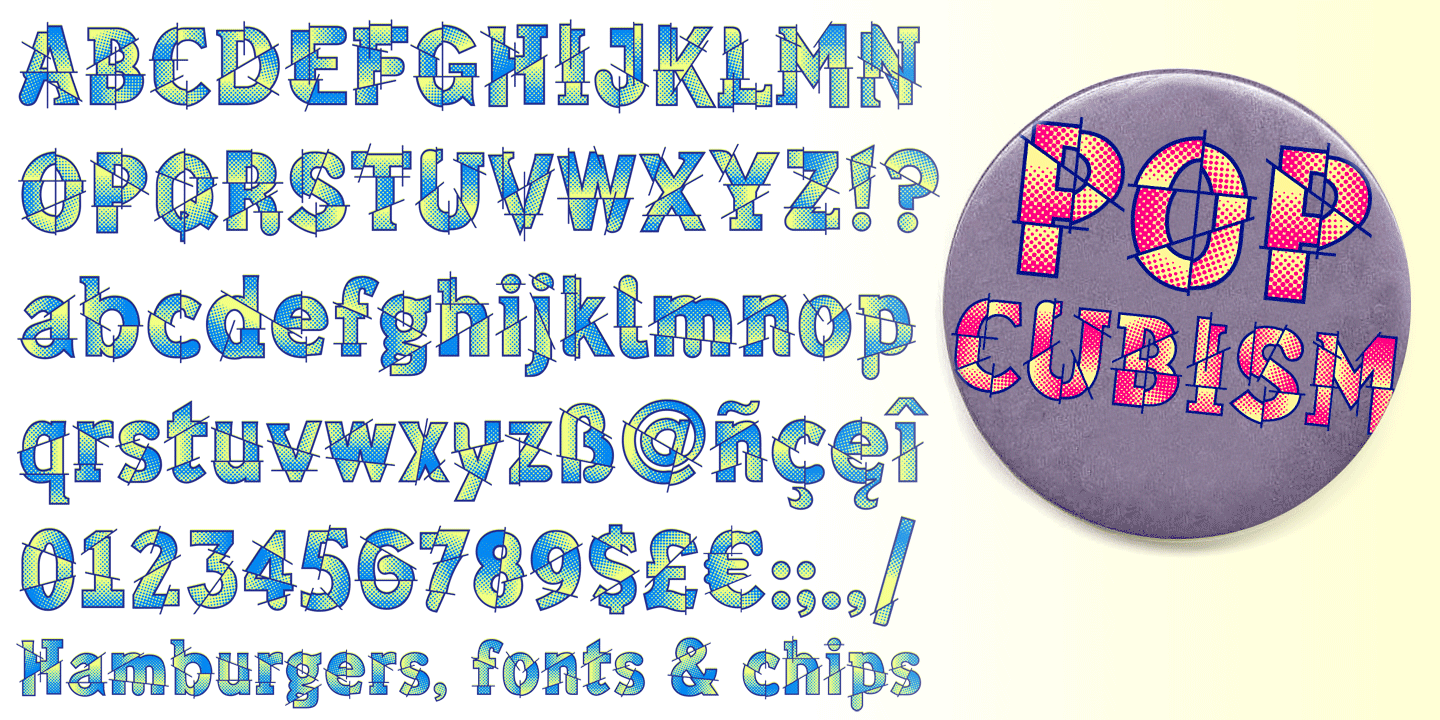
The Pop Cubism Font Free Download is an exceptional choice for projects that need a bold, artistic, and modern aesthetic. Its unique, fragmented letterforms and abstract design make it perfect for creating eye-catching posters for art exhibitions, branding for creative agencies, and titles for avant-garde publications. This font is a great fit for designs that want to break away from the traditional, adding a layer of sophisticated chaos and visual intrigue. The Pop Cubism Font allows you to make a powerful statement that is both artistic and memorable, capturing the viewer's attention with its striking and unconventional style.
What makes this font so exciting is its ability to blend the principles of Cubist art with contemporary typography. The Pop Cubism Font features letterforms that appear to be deconstructed and reassembled, creating a sense of dynamic movement and depth. This abstract quality gives the font a personality that is both intellectual and playful, making it a unique tool for visual storytelling. Despite its artistic nature, the font is designed to maintain a high degree of legibility, ensuring your message is not lost in its artistic flair. It’s a typeface that works hard to not only present information but also to challenge the viewer's perception, making it a valuable asset for any cutting-edge design project.
The Pop Cubism Font family often includes a variety of styles to give you more creative flexibility. While its single, bold weight is its most notable feature, the family can also include a slightly different version for added emphasis or an italic variant for subtle flair. This range of options allows you to build a cohesive typographic system that is consistent across all your materials. The Pop Cubism Font Free Download is a great opportunity to explore these different styles and see how they can work together to create a powerful and unified brand identity.
By choosing the Pop Cubism Font Free Download, you’re opting for a typeface that embodies artistic innovation and a modern spirit. It’s a font that works tirelessly to ensure your projects are not just seen, but experienced as works of art, leaving a lasting impression on your audience.